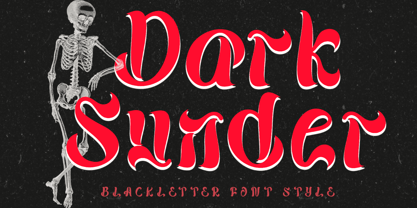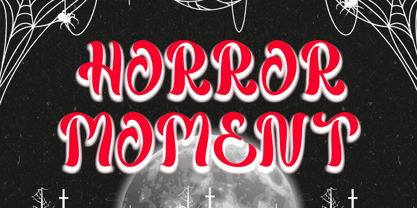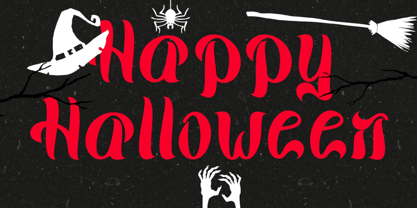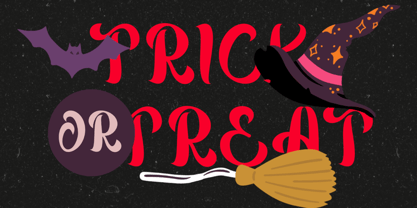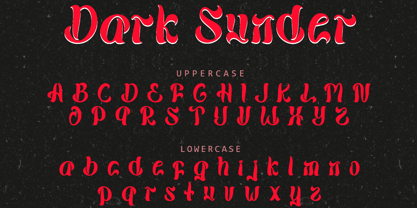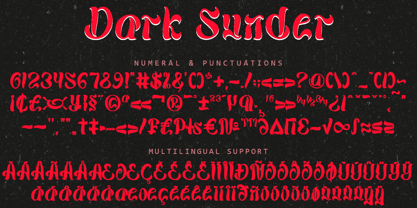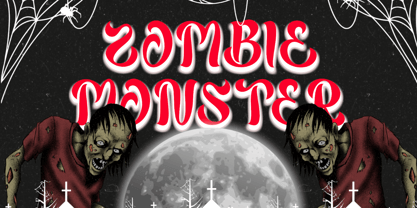
Dark Sunder
by Yoga Letter
The Dark Sunder Font Family was designed by Isroni Yoga Prasetya and published by Yoga Letter. Dark Sunder contains 1 styles. More about this family
"Dark Sunder" is an elegant and modern horror font. This font is equipped with uppercase, lowercase, numerals, punctuations and multilingual support. It is very suitable for use for halloween, summer, vacation, father's day, back to school, christmas, print, poster, branding, sticker and others.
Designers: Isroni Yoga Prasetya
Foundry: Yoga Letter